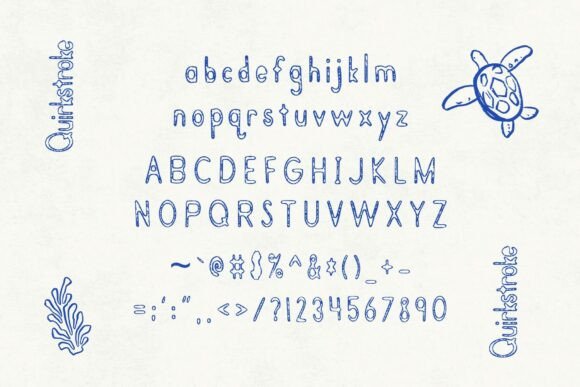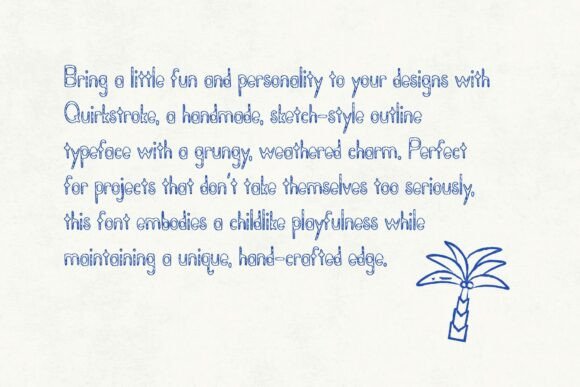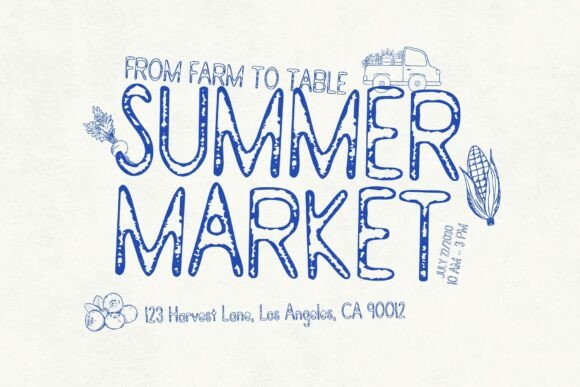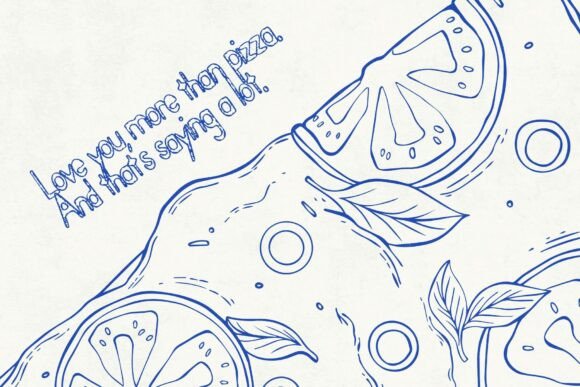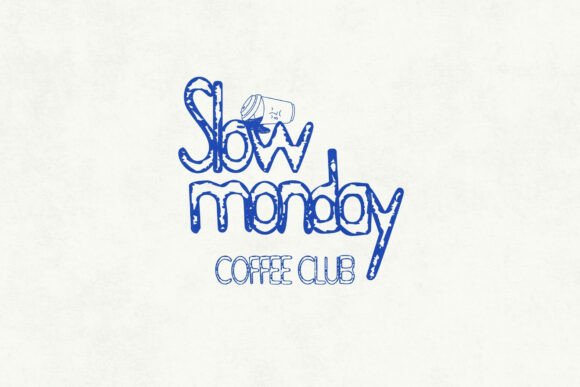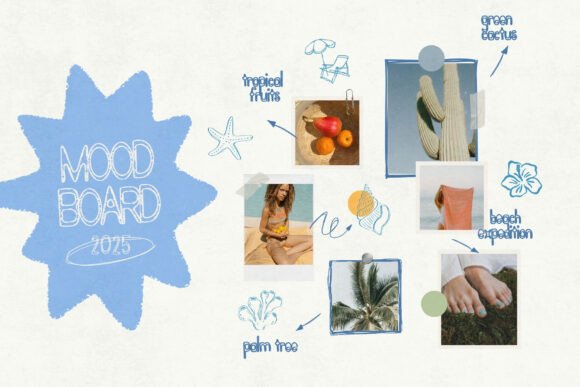
Introduction to Quirkstroke Font
Bring a little fun and personality to your designs with Quirkstroke, a handmade, sketch-style outline typeface with a grungy, weathered charm.
Perfect for projects that donโt take themselves too seriously, this font embodies a childlike playfulness while maintaining a unique, hand-crafted edge Every line, curve, and rough edge feels intentionally imperfect, giving your work a creative, whimsical vibe thatโs perfect for posters, invitations, crafts, kidsโ designs, branding, or any project that benefits from a touch of personality and spontaneity.
Key Features of Quirkstroke Font
Why Choose Quirkstroke Font?